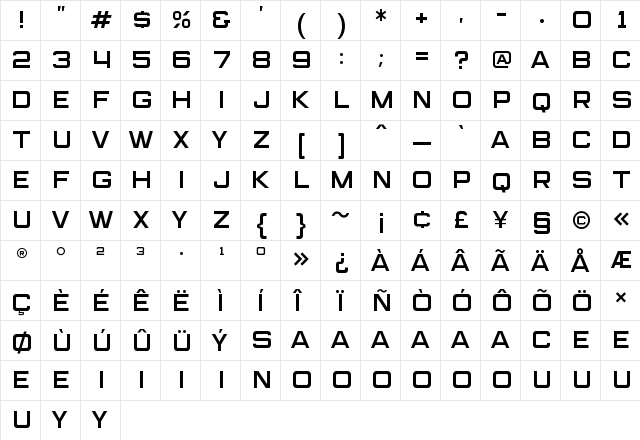
Marsek Demi Regular Font Preview
Marsek Demi Regular
Marsek Demi Regular Font Details
Design Context for Marsek Demi Typeface
Marsek Demi offers clean, dependable letterforms without strong stylistic allegiance, making it a practical choice for designers who need flexibility.
Pro Tip: Pair Marsek Demi with a font of contrasting weight or personality to build a more expressive typographic hierarchy.